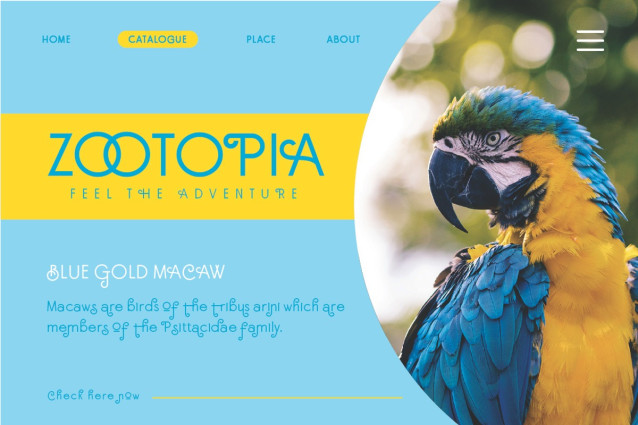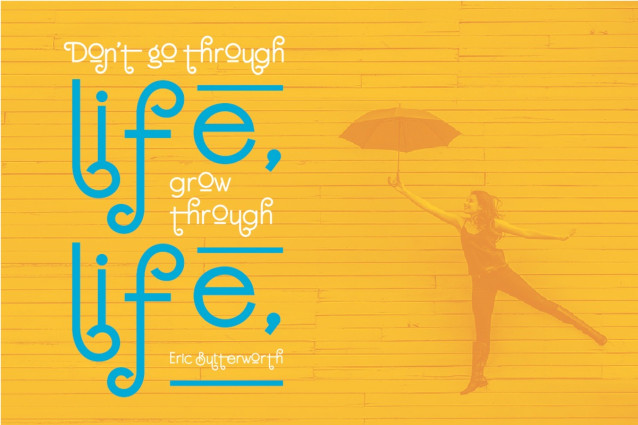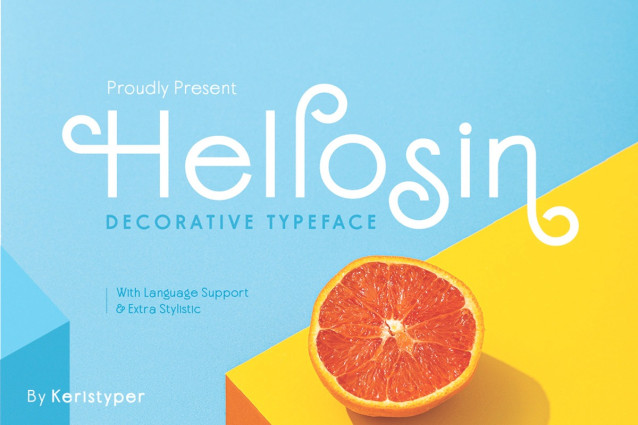
Hellosin Font
Hellosin Font is a sans serif-based typeface that has curly and elegant looks with a bunch of alternates that will make your design even more stunning and stand out. This font is good for logo design, Social media, Movie Titles, Books Titles, short text even long text letters, and good for your secondary text font with sans or serif.